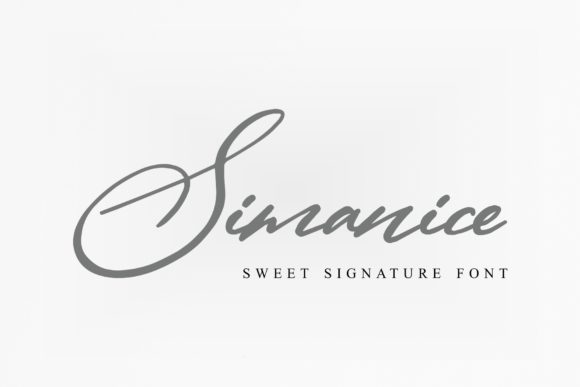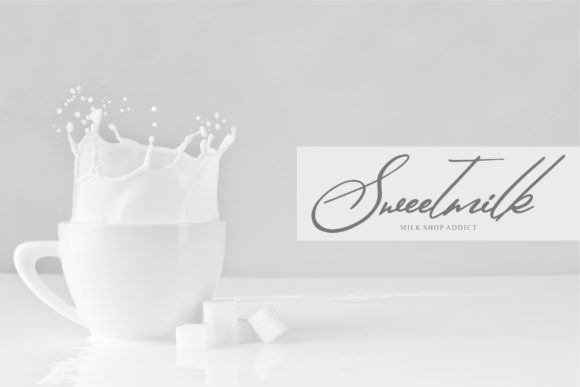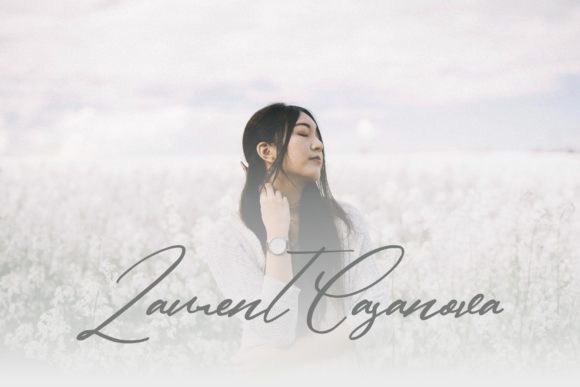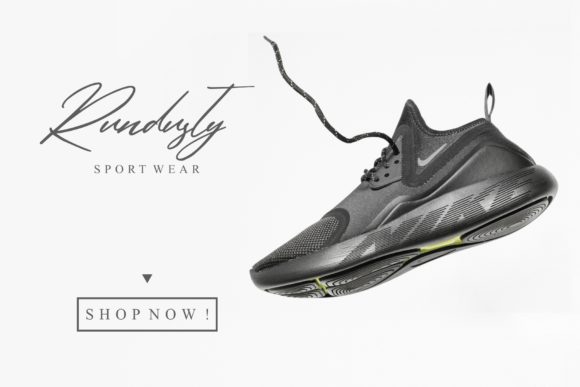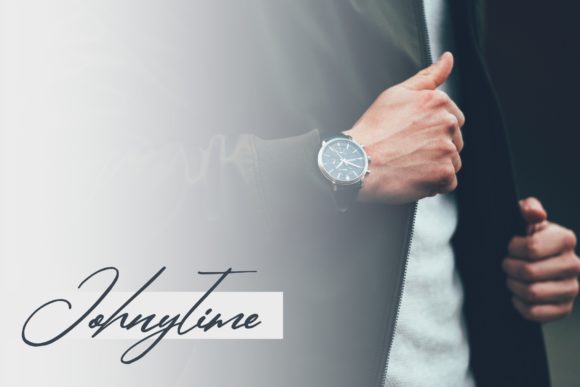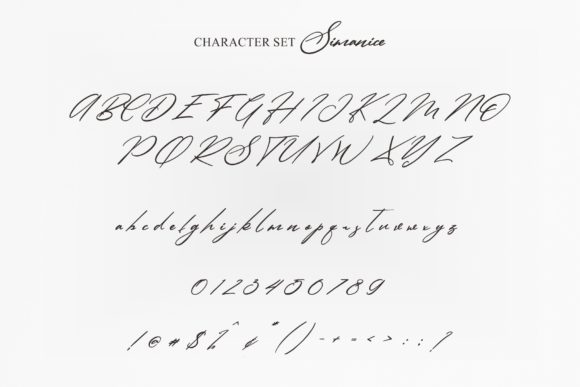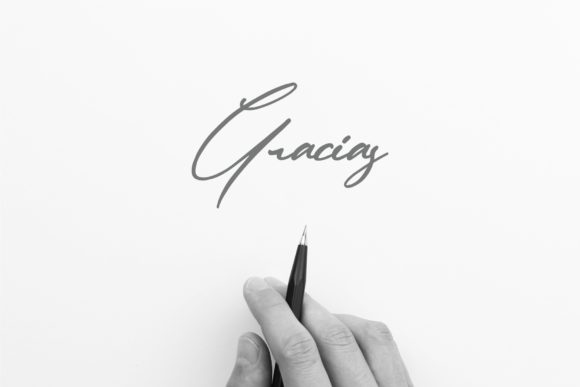
Simanice Font
About Simanice Font
The Simanice is a fashionable and contemporary signature font. It has an elegant style and is perfect for adding a luxurious feel to your designs.
It’s perfect for logos, branding, magazines, blog posts, social media, advertisements & product designs.